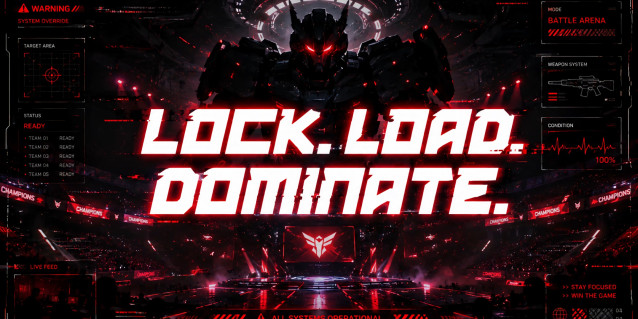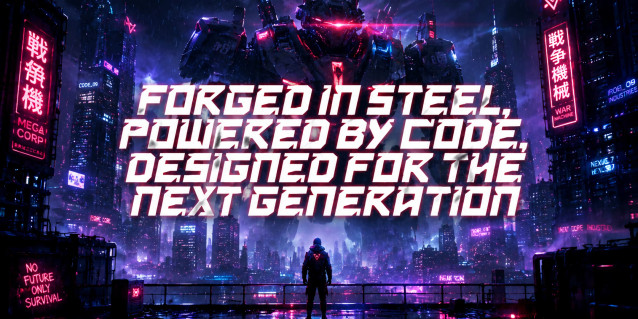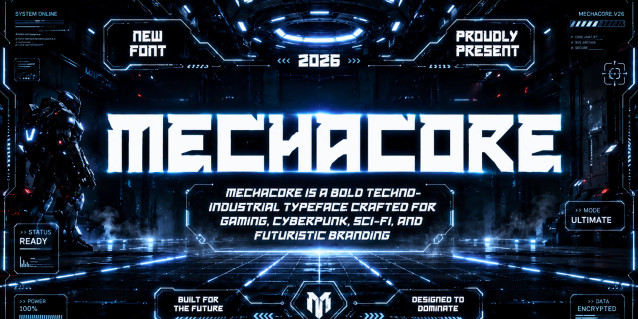
Mecha Core Futuristic Gaming Font
Mecha Core is a bold futuristic display font inspired by cyberpunk aesthetics, industrial machinery, and next-generation gaming culture. Designed with sharp geometric edges and powerful mechanical forms, this typeface delivers a strong sci-fi atmosphere perfect for esports branding, futuristic posters, game titles, technology projects, movie headers, and digital interfaces.
Its aggressive techno style combines modern industrial energy with robotic precision, making every headline look powerful, cinematic, and futuristic. Whether used for gaming logos, cyberpunk visuals, streaming graphics, or sci-fi UI concepts, Mecha Core brings a high-impact futuristic identity to your designs.
Drawing heavily from cyberpunk aesthetics, heavy machinery, and robotic elements, this font features sharp geometric angles, tech-driven cuts, and a powerful structural presence. It is perfectly engineered for high-impact visual designs, making it an excellent choice for gaming content, esports graphics, movie posters, sci-fi book covers, tech apparel, and digital user interfaces. With its distinct mechanical styling and commanding silhouette, Mechacore delivers a strong, cutting-edge look that brings any modern or futuristic concept to life.